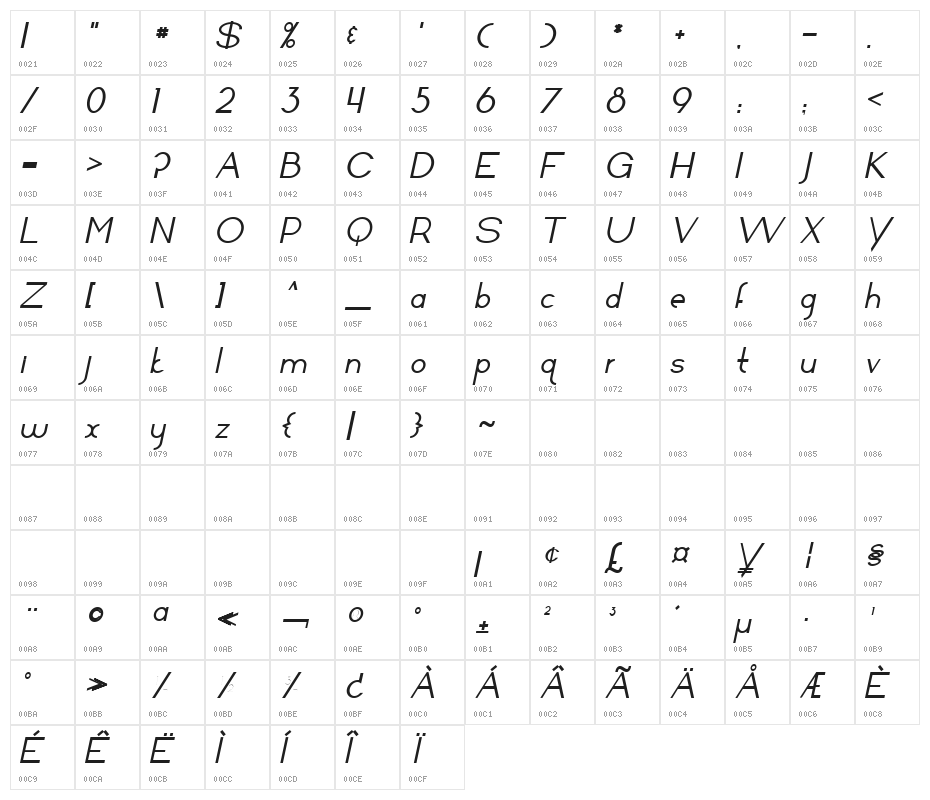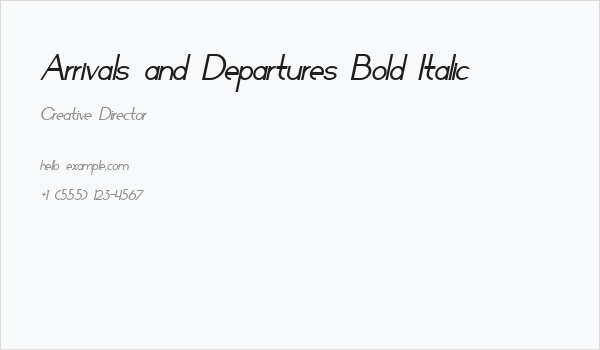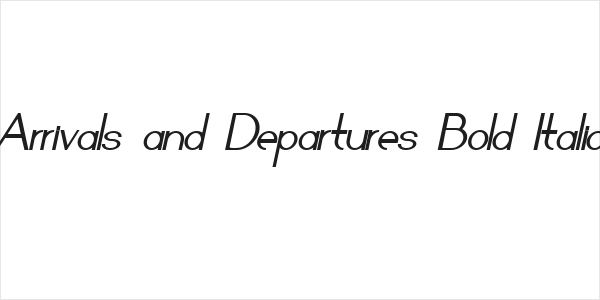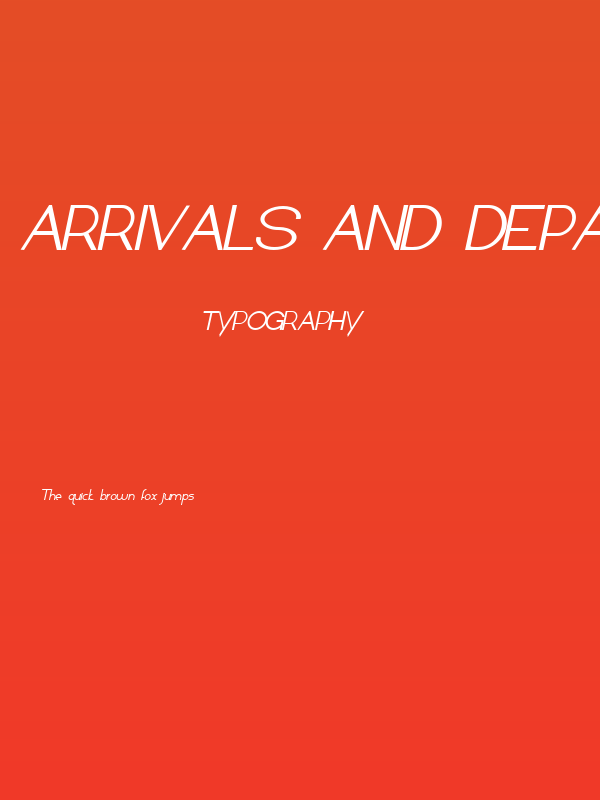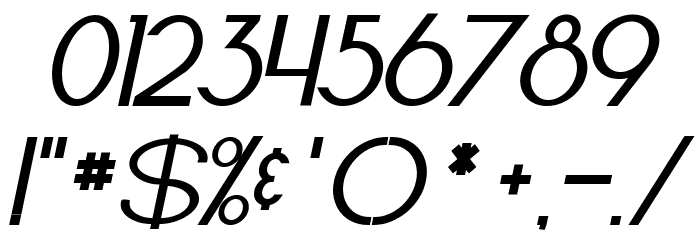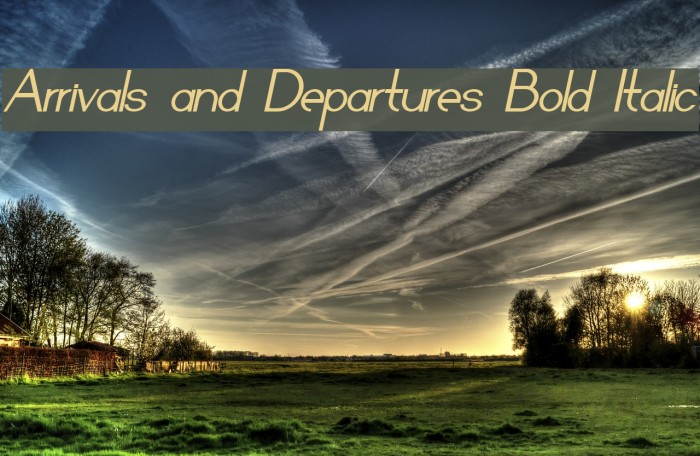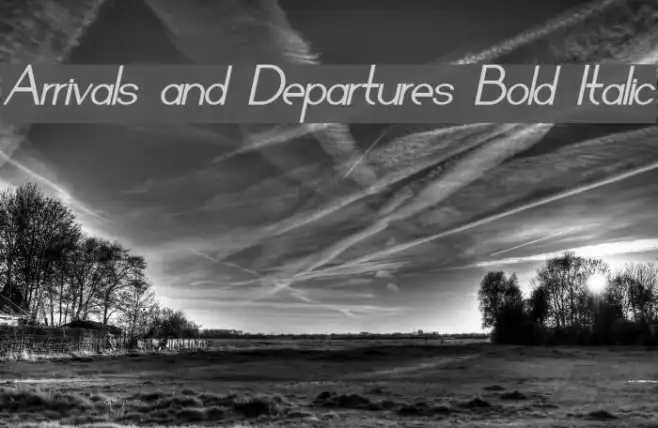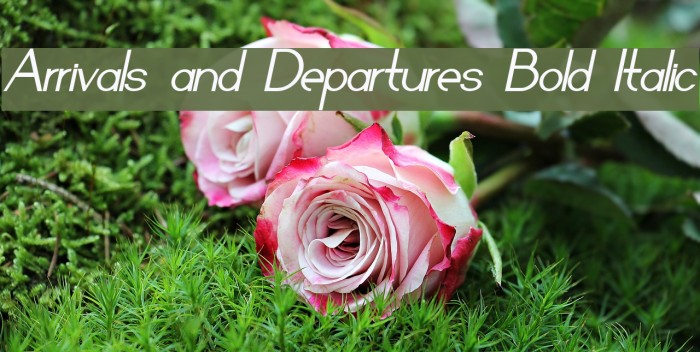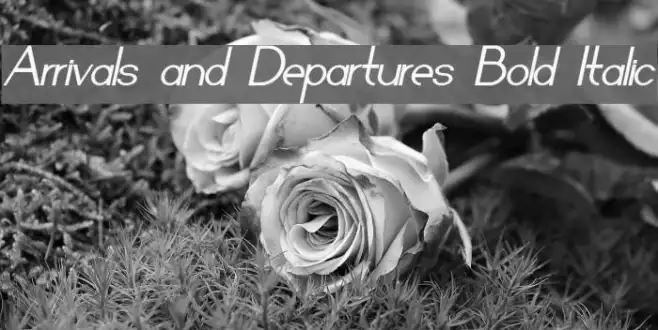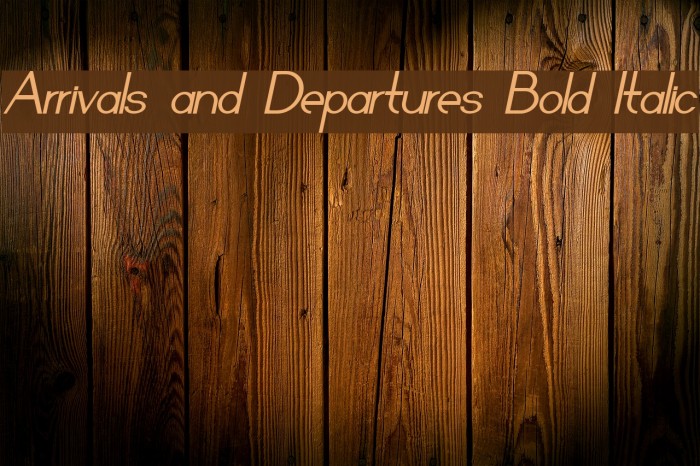
Arrivals and Departures Bold Italic Font
Arrivals and Departures Bold Italic Description
This font features a sleek, modern design with a distinct italic slant, giving it a dynamic and forward-moving appearance. The characters are bold, with a consistent stroke width that maintains readability while adding a touch of elegance. The uppercase letters are tall and commanding, while the lowercase letters maintain a harmonious balance with their slightly rounded forms. The numerals are clear and easy to distinguish, making them suitable for a variety of applications. Special characters are well-integrated, maintaining the overall aesthetic of the font. This font is ideal for projects that require a contemporary and professional look.
| Use Case | Headlines, Logos, Branding |
| Proposed Projects | Ideal for branding, advertising, headlines, and digital media projects. |